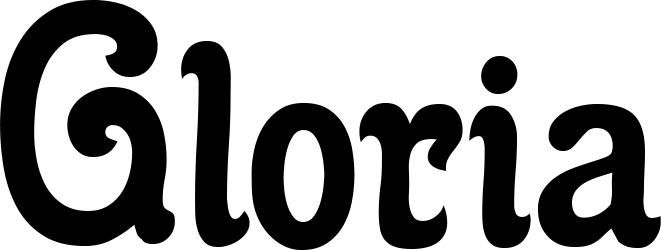
Gloria Font
Capture your client’s attention with this retro font at first sight. Gloria appears in curly and semi-bold characters and suits great TV shows, video games, logos, and whatnot. Download it like a shot and add an olden and antique feel to your text design. Wish for more of this category? Dive deeper into our variety!